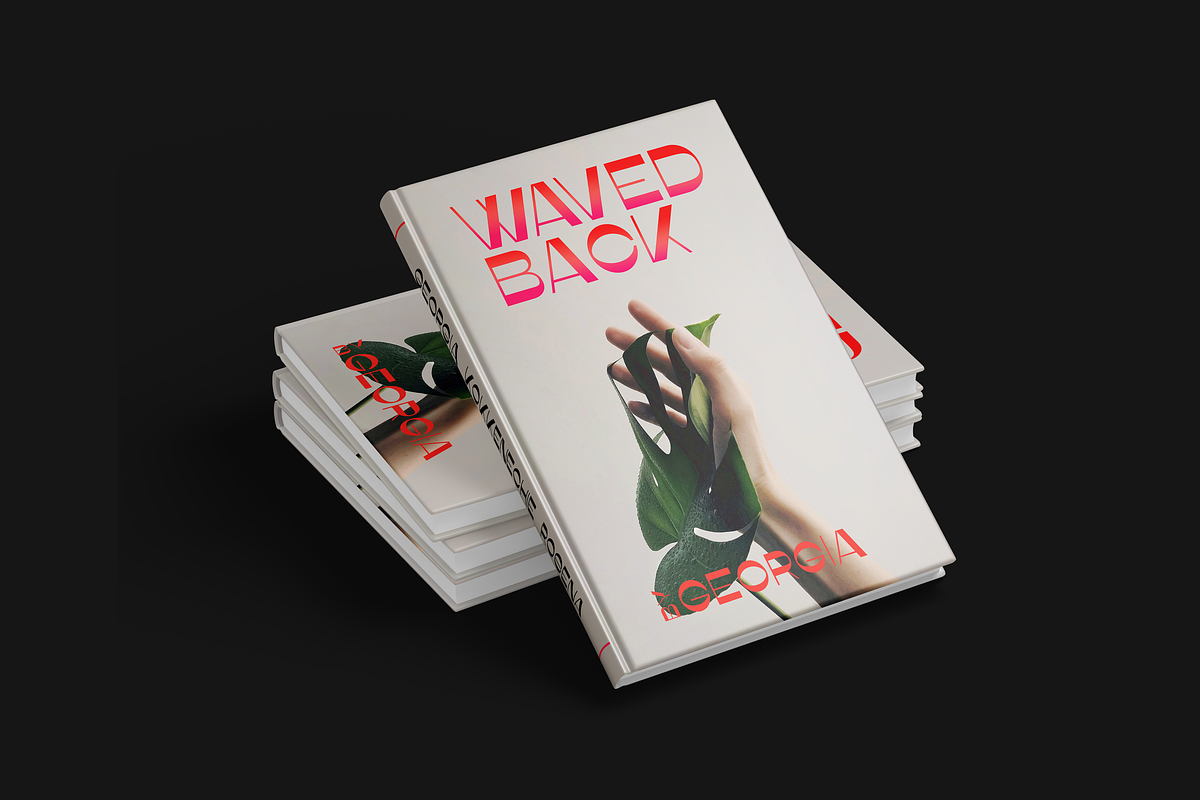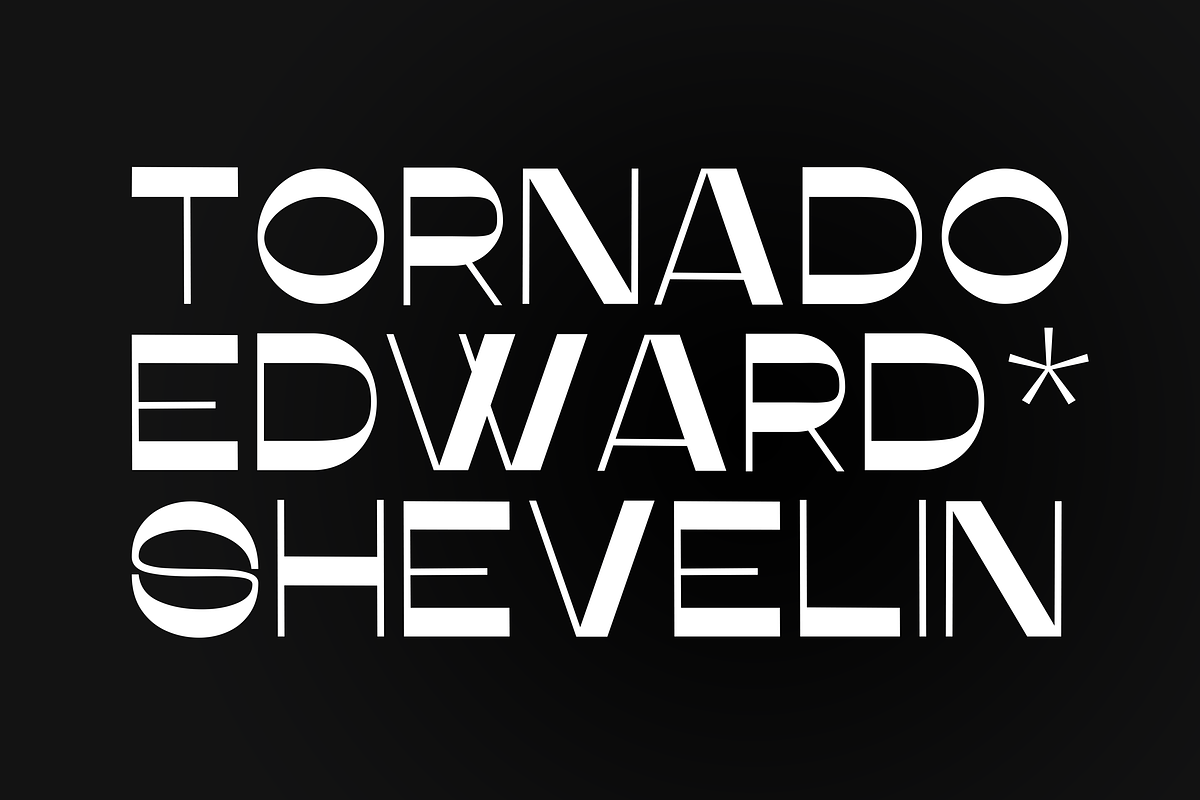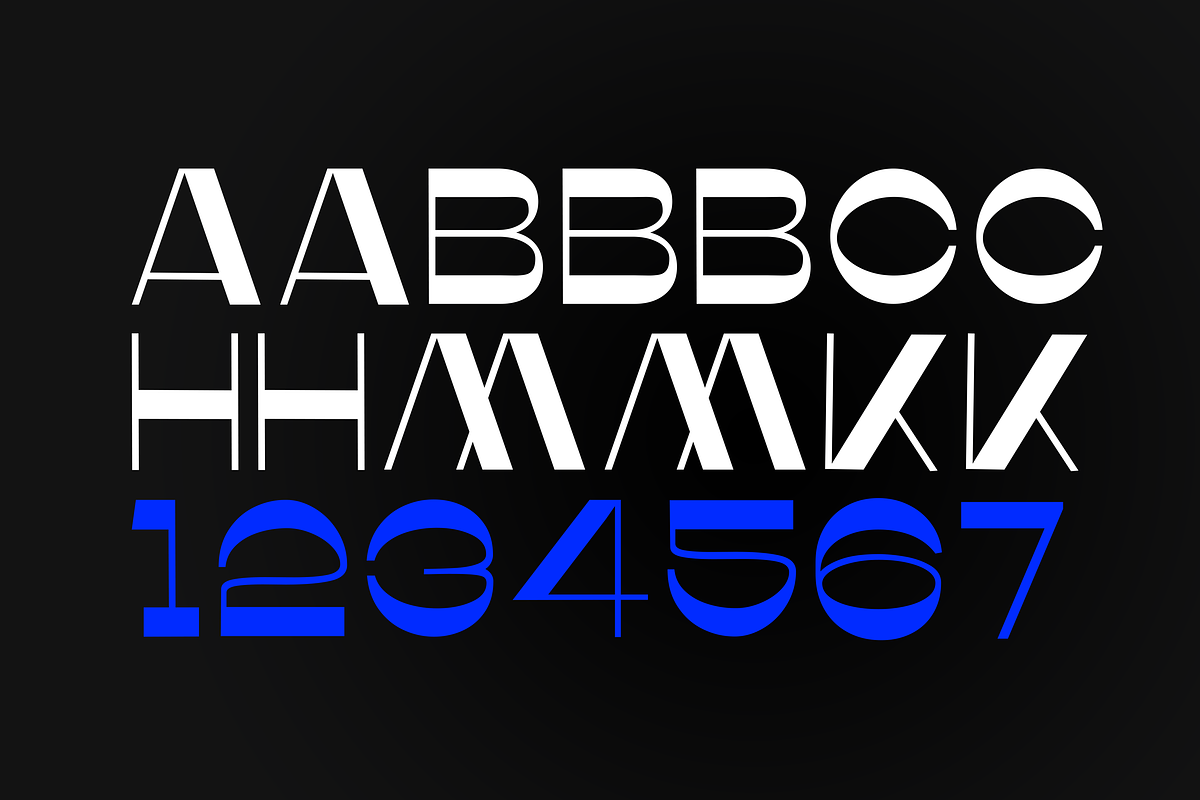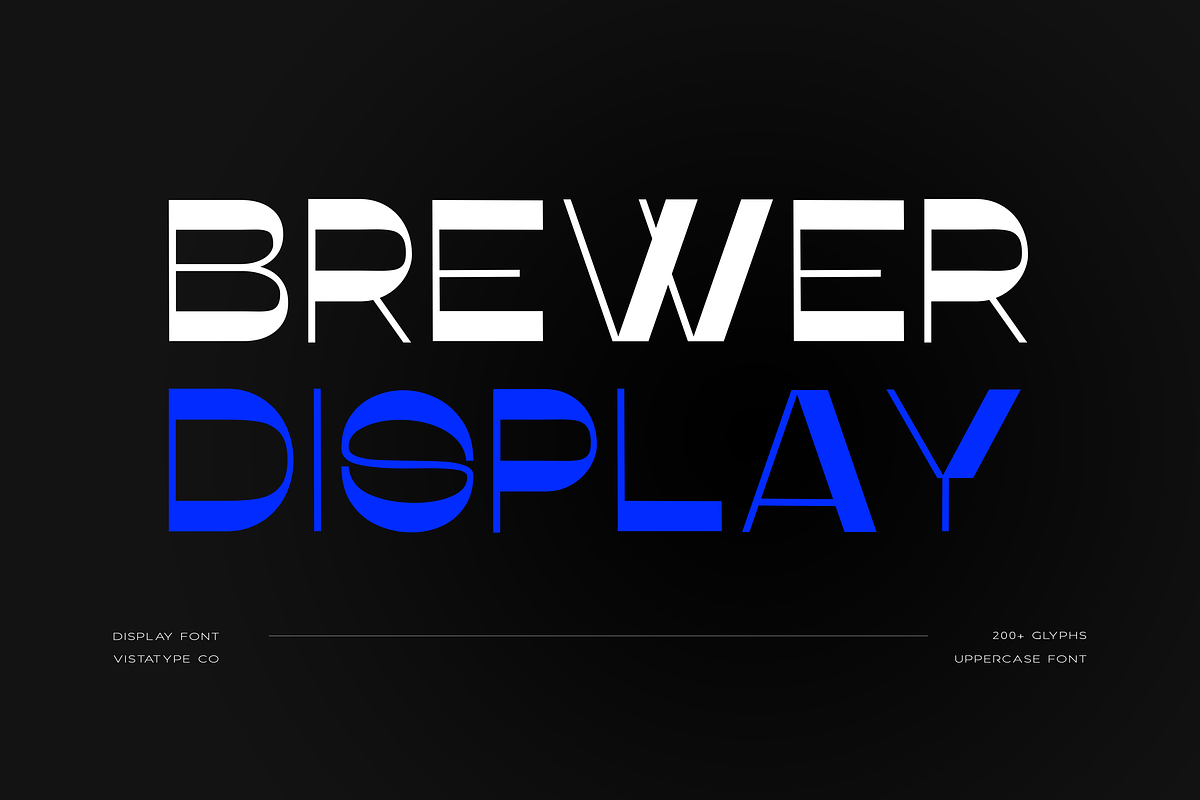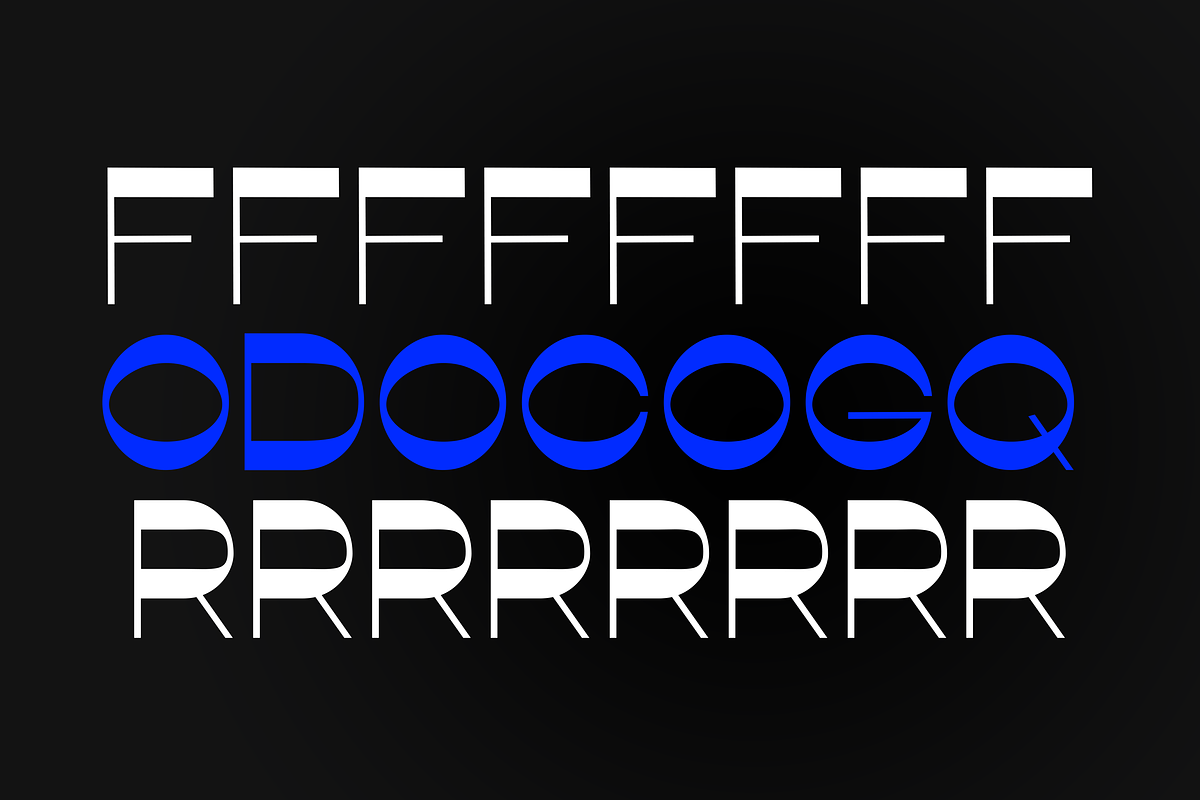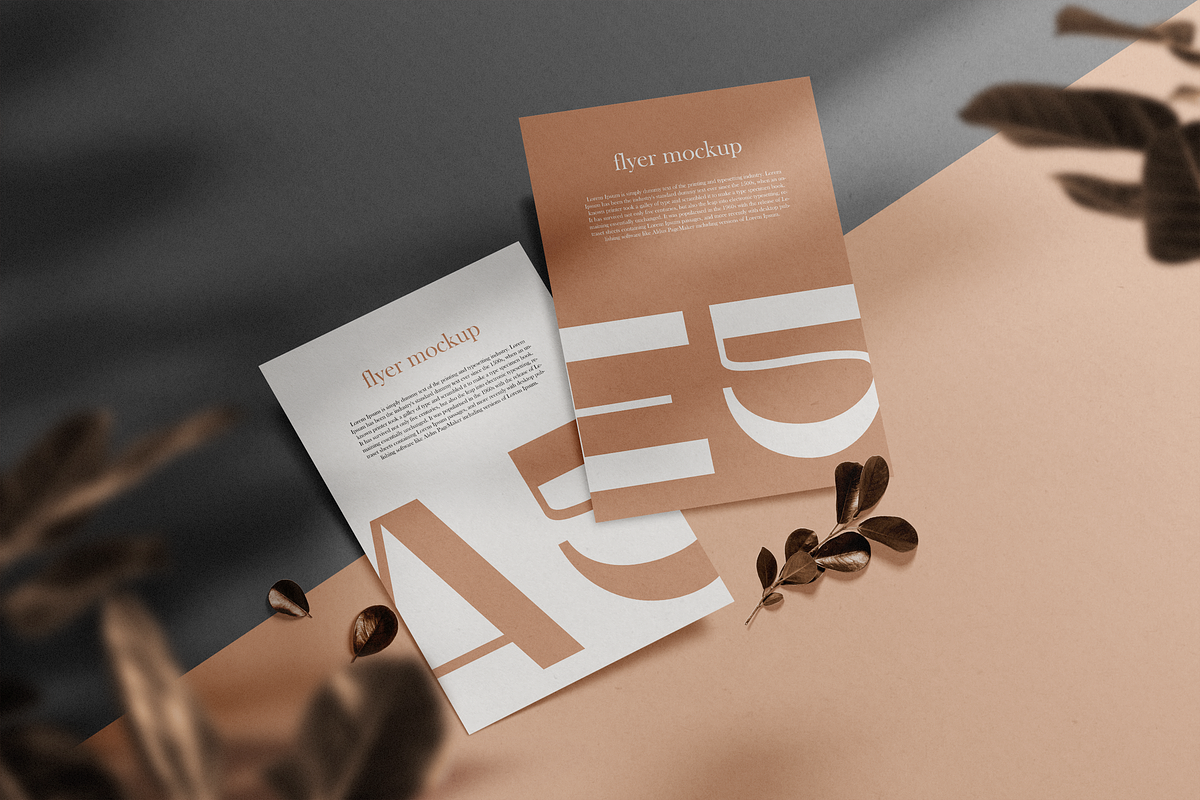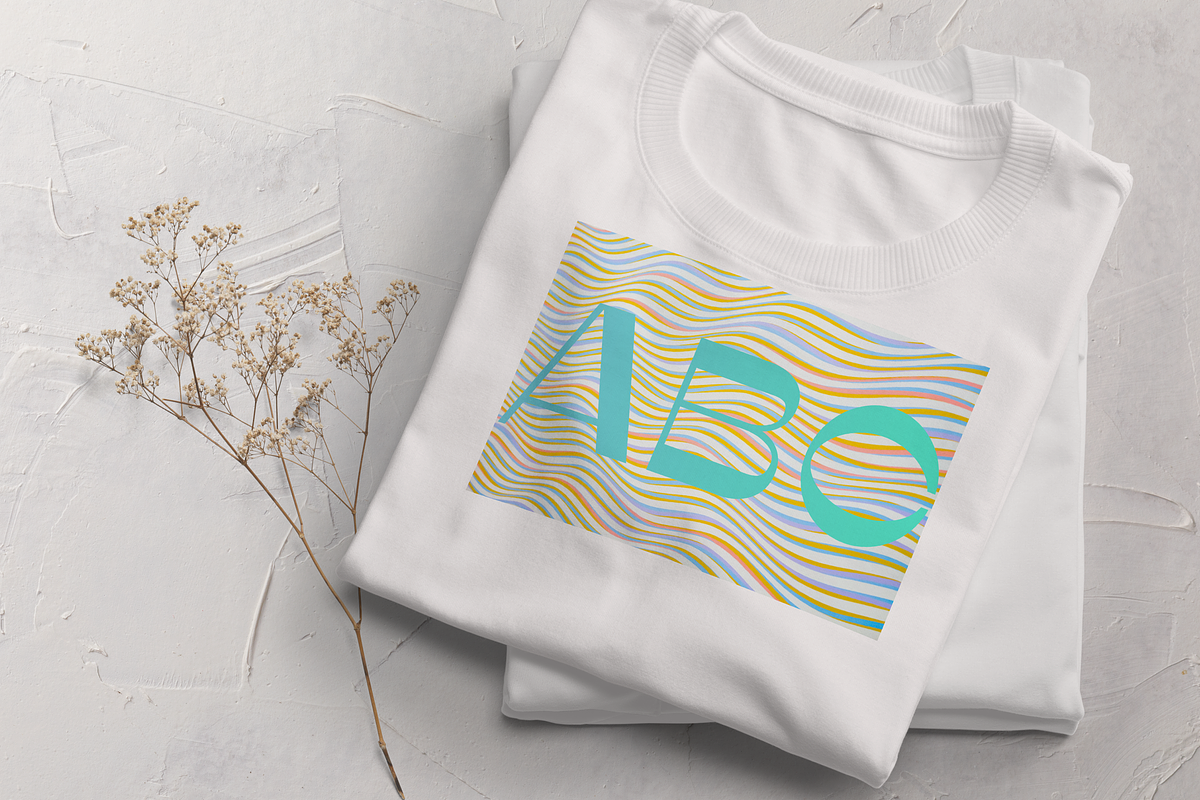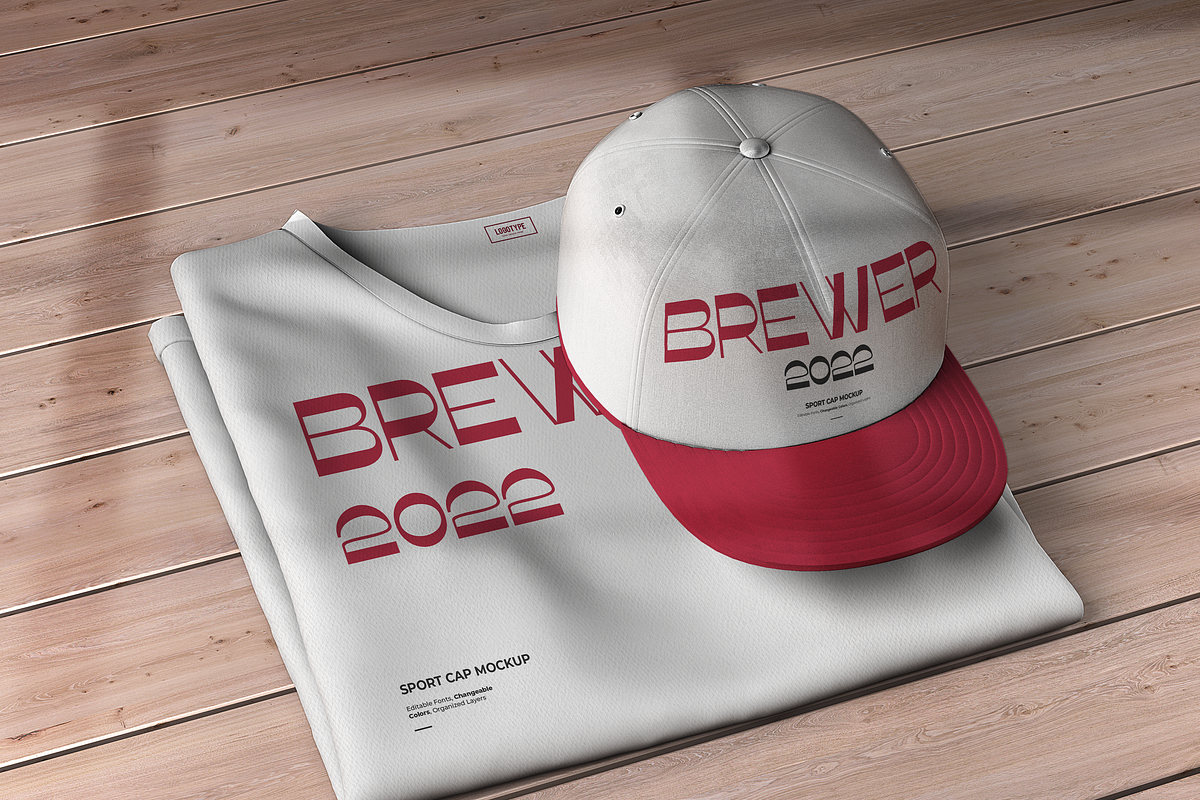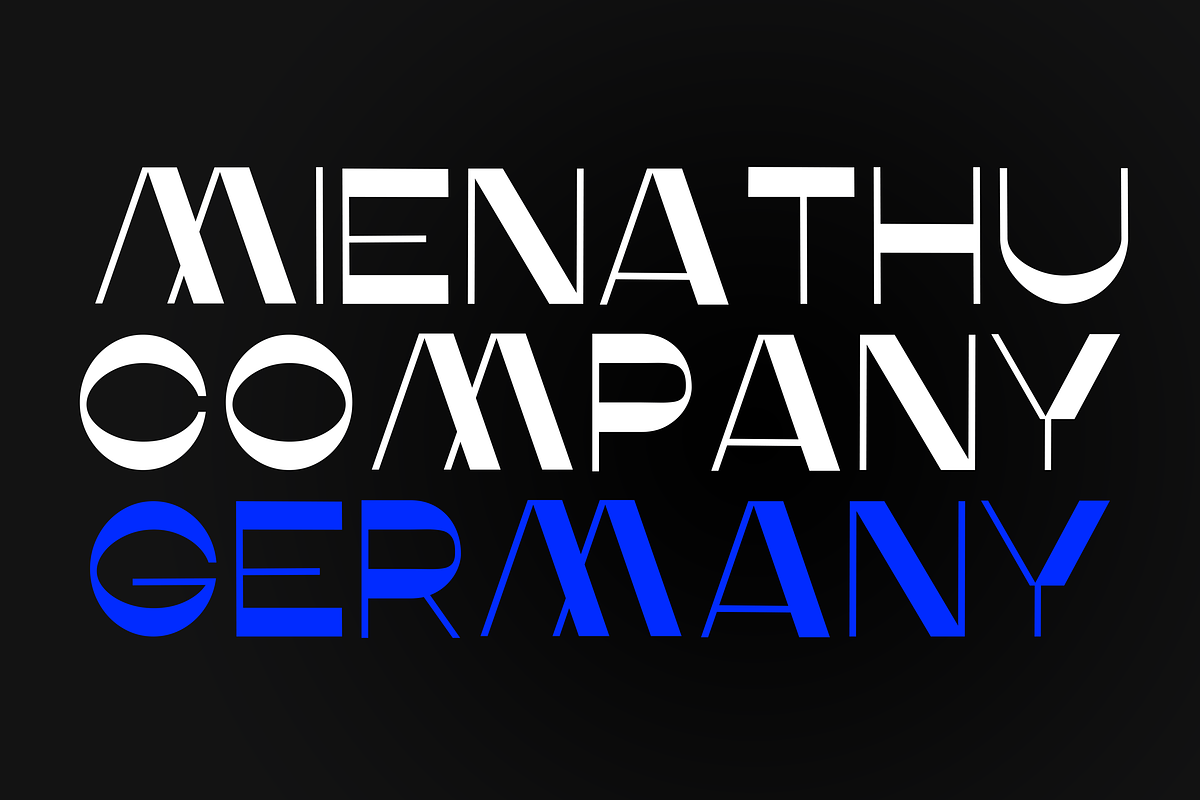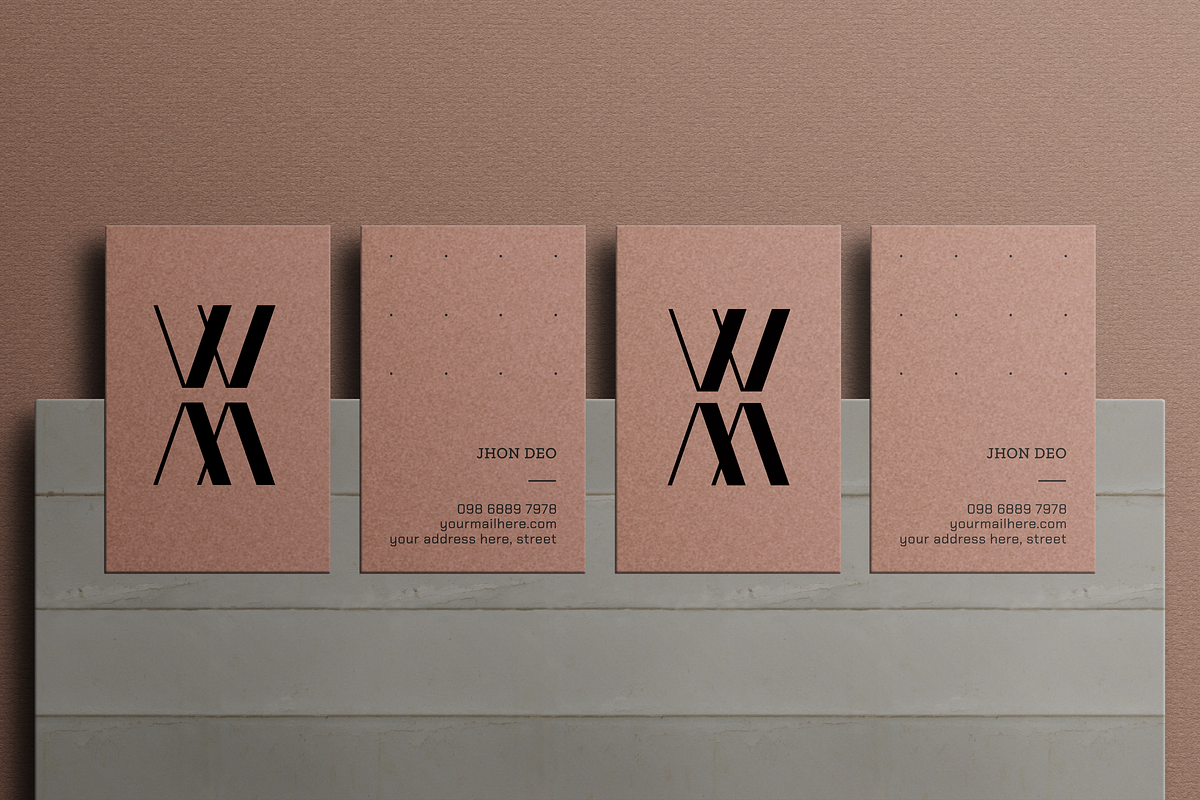
Brewer Display
Introducing Brewer Display. Brewer Display is a modern font, best used as a display for headings, logos, branding, magazines, product packaging, and invitations. Brewer Display includes Western European & Central European sets of language support. it includes 352 glyphs.
Brewer Display is perfectly suited for a wide variety of projects, such as signature, stationery, logo, wedding, typography quotes, magazine or book cover, website header, clothing, branding, packaging design, and more.